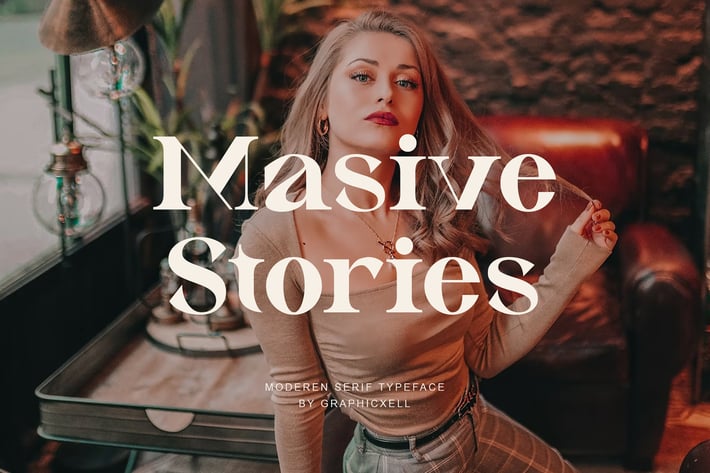
Masive Stories Ligature Serif Font
Masive Stories Ligature Serif Font inspired by the famous minimalist logo perfect for the purposes of designing templates, brochures, videos, advertising branding, logos, invitation, layout design, elegant crafting, beauty design and more.
+ Ligatures